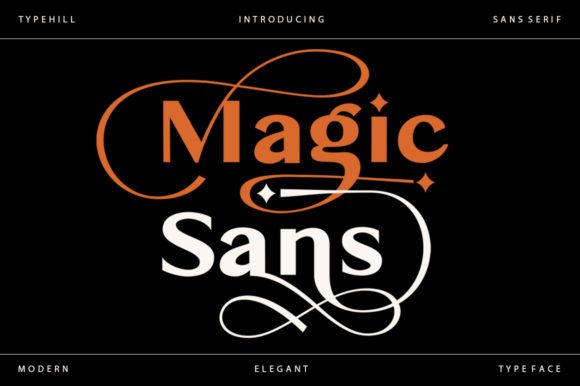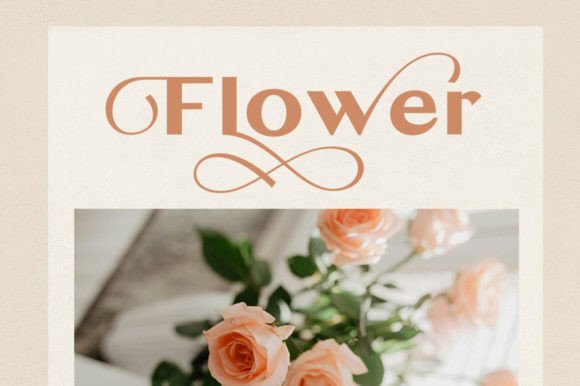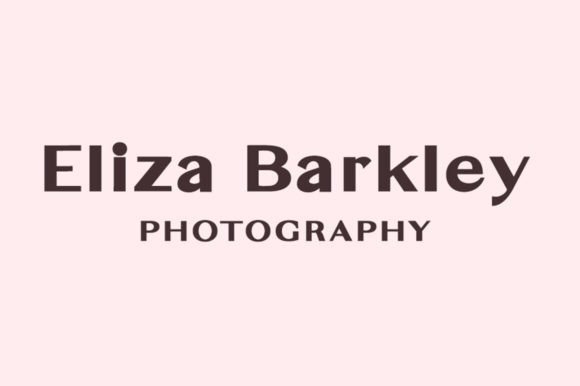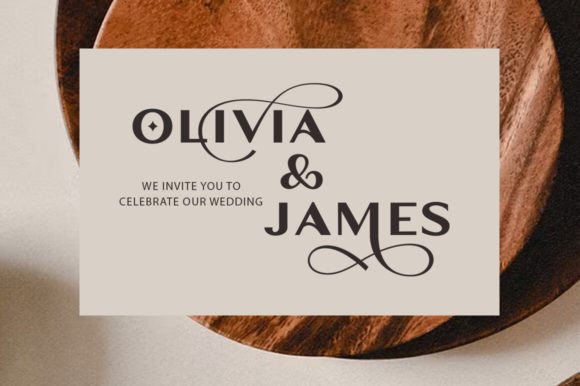
Magic Sans Font
About the Magic Sans Font
Meet Magic Sans Font, a stunning font that brings a touch of elegance and professionalism to any design. Magic Sans attracts a typeface that is smooth, clean, unique, elegant, modern, feminine, sensual, glamorous, simple and very easy to read. Classic style is very suitable to be applied in various formal forms such as invitations, labels, menus, logos, fashion, make up, stationery, letterpress, romantic novels, magazines, books, greeting/wedding cards, packaging, labels.
Magic Sans’s elegant yet approachable nature makes it ideal for branding projects requiring a touch of sophistication, particularly in the fashion, beauty, and luxury goods sectors. It excels in headlines, logos, and short-form text on packaging and invitations. However, its delicate stroke weight isn’t suited to extensive body copy or UI elements where high legibility is paramount for extended reading.
For optimal impact, pair Magic Sans with a complementary sans-serif like Montserrat for body text, offering a clean, modern contrast. Alternatively, a classic serif like Garamond provides a sophisticated counterpoint, enhancing its elegant personality. Avoid pairing with overly playful or geometric fonts which might clash with its refined aesthetic.
The overall personality of Magic Sans is sophisticated and feminine, conveying a sense of quiet luxury and understated elegance. It projects a modern yet timeless feel, suitable for brands aiming for a refined and approachable image.
Magic Sans Font Example